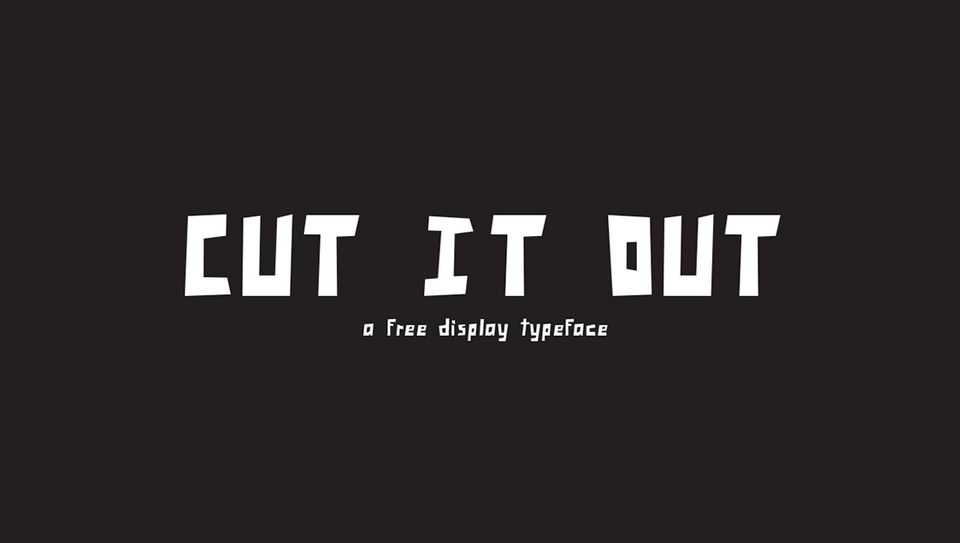
Download Cut It Out font, a display typeface, based on simple rules, use straight lines between shifted points and scissonrs to form the glyphs. Cut It Out font is great for attrctive posters, headlines, prints and other creative typographic projects.